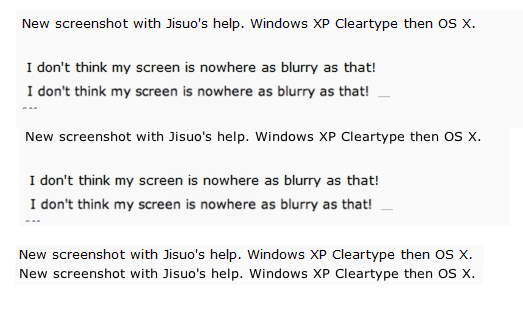
If I look at a web page on a PC, the text looks nice and crisp to me. If I look at the same web page on a Mac, the text seems a bit blurry, or slightly fuzzy.
I Googled ‘mac blurry fonts’ and found that it's apparently due to Apple's font smoothing or rendering (or something like that).
Since this fuzziness really bothers me, I'm wondering if there's a fix for it. Maybe a way to turn off the font rendering, or just tweak it a bit (similar to ClearType in Windows?).
The funny thing is that text on my iPhone looks great -- nice and crisp. So I'm really hoping that text on a MBP can be tweaked to look just as crisp as it does on an iPhone.
I'm betting it's your resolution setting.
Are you on a laptop or a desktop with a non-Apple LCD display?
These images show it well: (OS X on top, Windows Cleartype beneath):
(Windows Cleartype on top, OS X beneath)
I don't know anyway to disable it. Too bad because it stops me from buying Mac again. Windows just looks sharper. I'll be very interested if this can be changed.
Anyone know of a way to tweak this?
That's an issue with the way macs do their font smoothing (anti-aliasing), and is very subjective. I happen to prefer the mac look to the windows look. But there are some ways to tweak it.
If you go to your System Preferences, and then to Appearances, there should be a Font Smoothing Style pulldown (at least in OS 10.5.X). Based on the way you describe it, it seems like you should try the Light option, but you may as well try all of them to see which suits you best. If none of them are satisfactory, you may just try turning off the smoothing altogether for smaller fonts by setting the minimum text smoothing size at 10 or 12 points.
Edit: Make sure to restart the application after making changes in the System Prefs. The fonts do not update automatically.
I'm with you there. Looking at text in Windows always looks too jagged and old school to me. But I'm a lifer, so there's no helping me. I noticed that IE8 does significant font smoothing though, much more Mac-like.
So there's no workaround for this?
Really, you think the (Safari) half of the picture I posted looks better than the (Firefox) top half?
Is OS X Zoomed in at all?
Hold Control, and scroll the mouse back or forward to see. If it doesn't zoom check mouse preferences, it may be set to another button.
I just remember having my screen blurry, not just for web pages -- everything. I found out I was zoomed in very slightly, and doing so made a noticeable difference in text sharpness.
I've never known my mac to show anything blurry over windows (except for when I had the above problem).
Whoa, that mac screenshot looks blurry! I don't think my screen is nowhere as blurry as that!
There is definitely something weird with that Safari shot. If my Macs looked that bad I'd go blind squinting at them all the time.
The other day I installed a new monitor on my Mac and it looked brilliant. I installed some system updates, restarted and it looked fuzzy (the letter "t" in lowercase was particularly noticeable for having fuzzy smoothing) and didn't seem too responsive to changes I made in the smoothing or font settings; quite like that screenshot. I am quite picky about screens so was quite upset. Fortunately another unrelated problem manifested and I ended up restarting again and zapping the PRAM. When it came up again, my crystal clear fonts were back. I can't promise that will fix it for anyone else as I was running updates that day and it could have been anything but definitely try all of the usual troubleshooting steps if you think something looks that off.
I first noticed this blurring effect when I bought my first Mac: MBA first gen. I noticed it on the MBA display itself. I thought I got a wrong display. I started this thread on Notebookreview:
"Anyone know of a way to tweak this?"
Hurray. Can anyone make a screenshot to confirm that this makes the letters crisper?